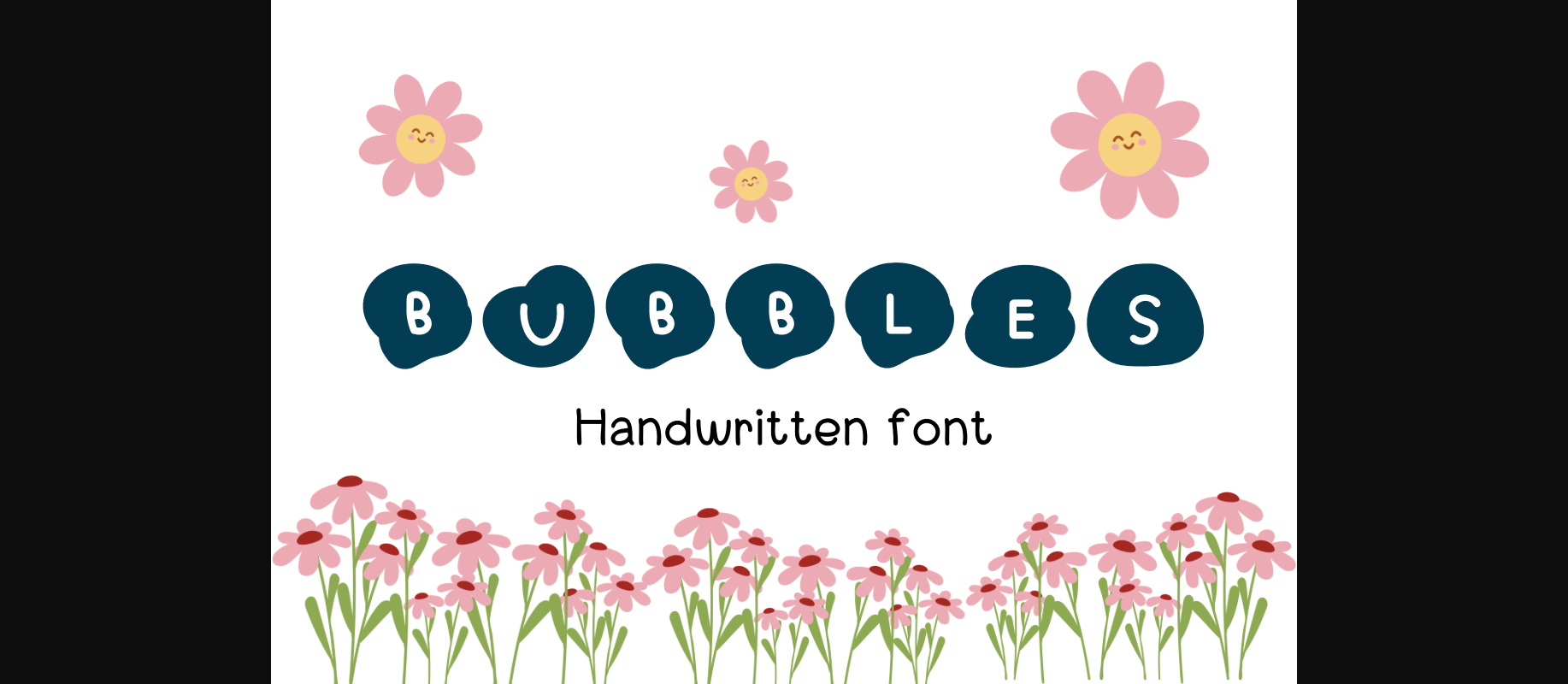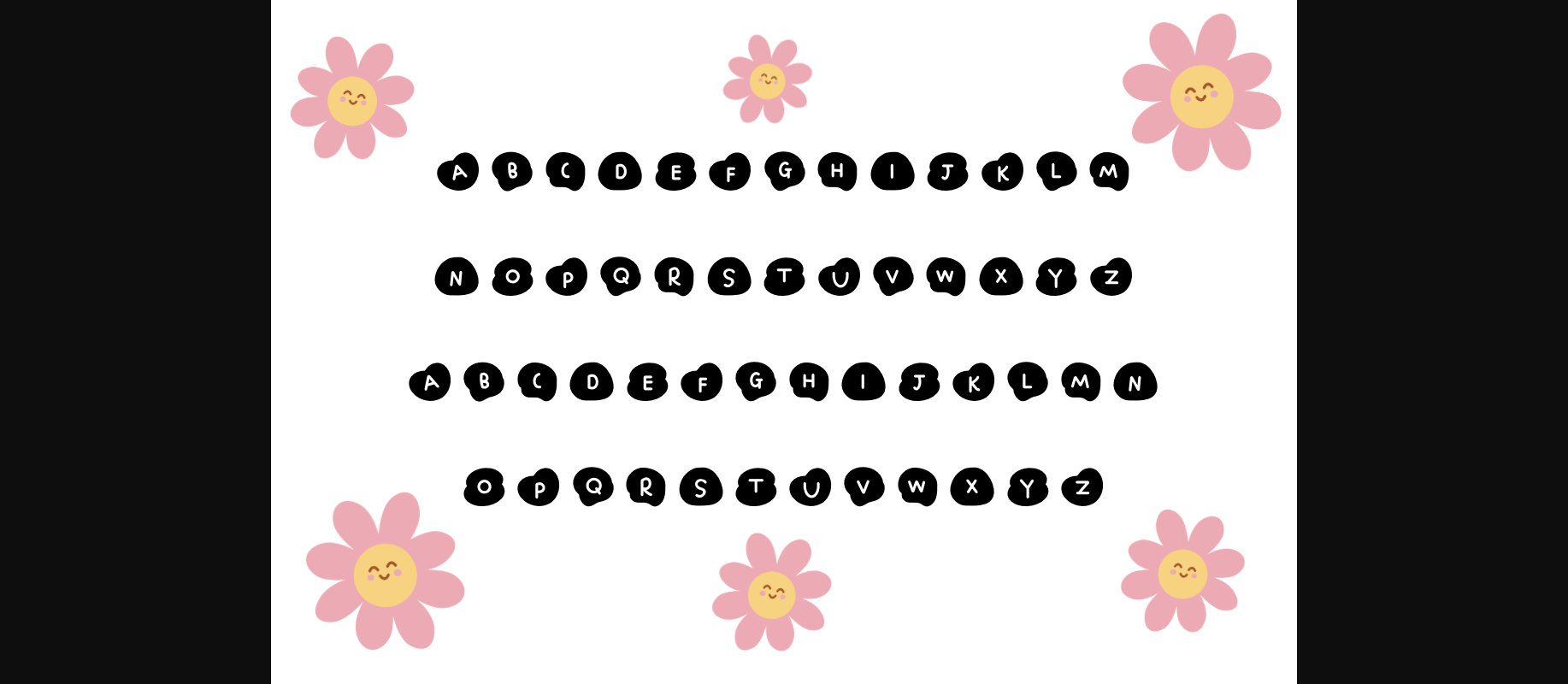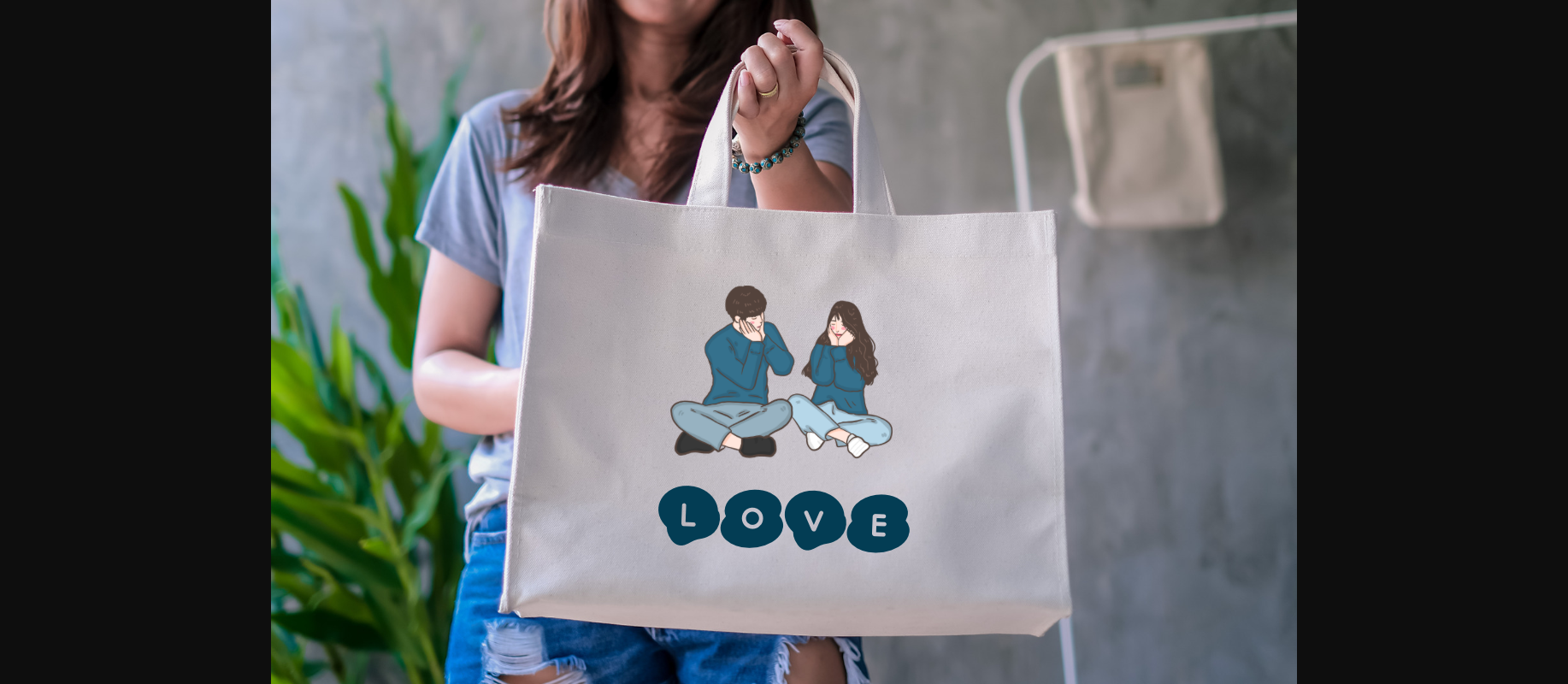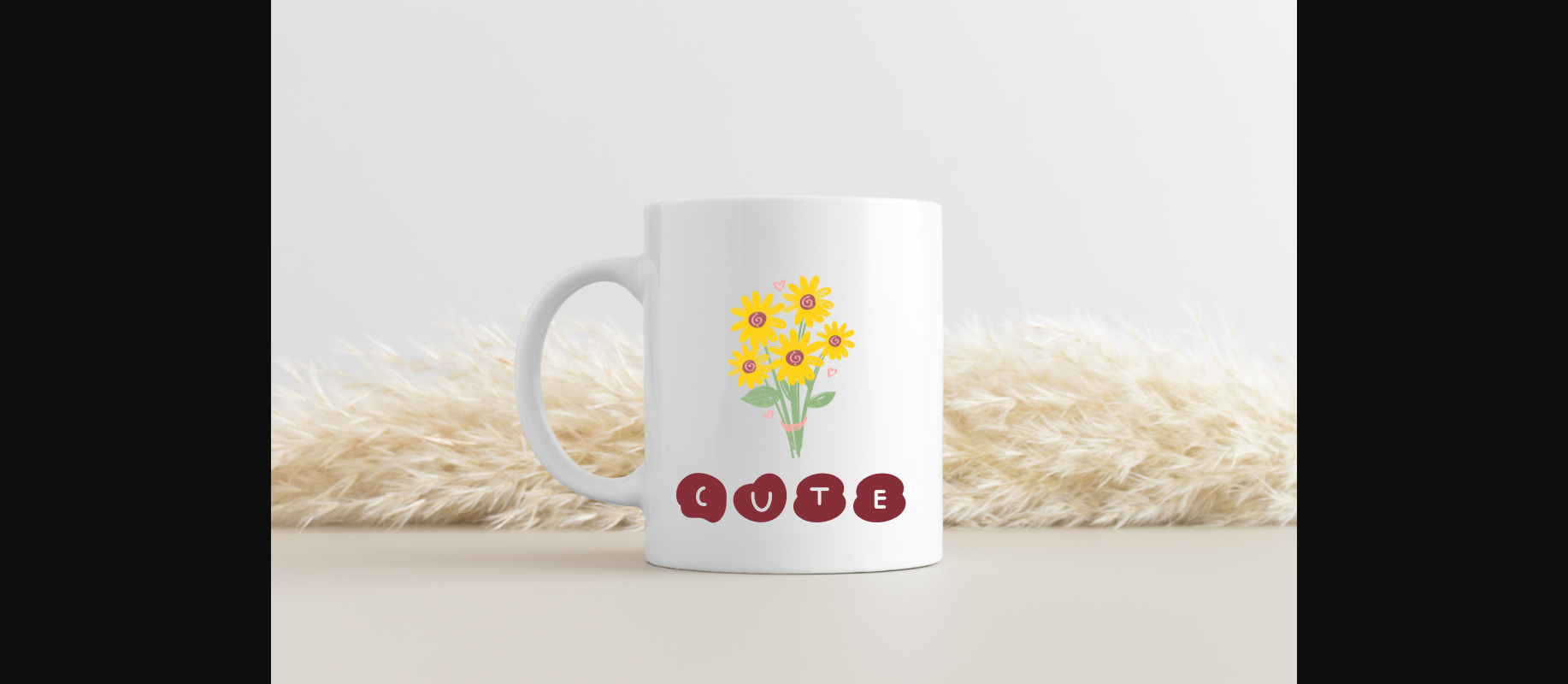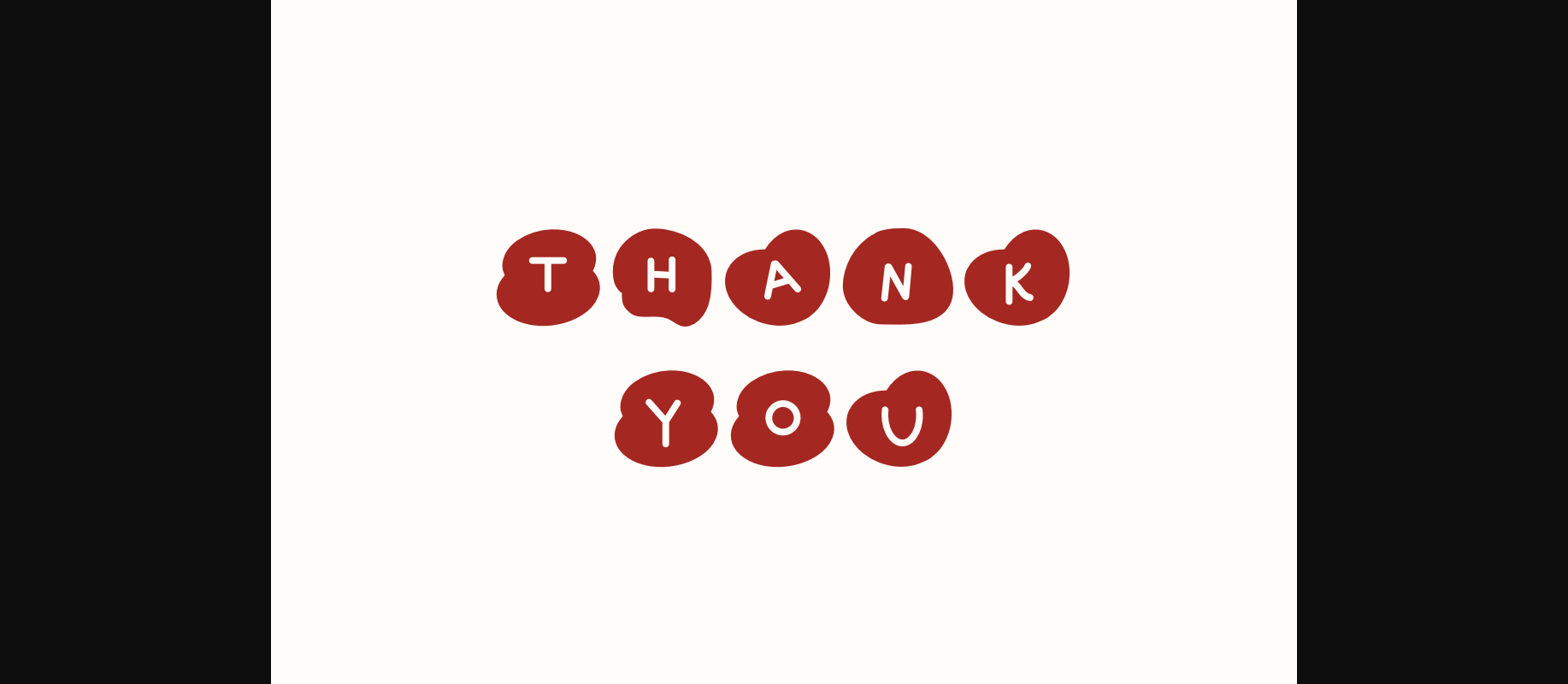
Bubbles Font
About Bubbles Font
Bubbles is a fun and playful decorative font where each letter is contained within its own bubble. This quirky feature adds a cheerful and light-hearted vibe to your designs. Perfect for projects that need a touch of whimsy, Bubbles brings a sense of joy and creativity to your text. Whether you’re designing greeting cards, posters, or anything in between, Bubbles adds a pop of personality to your typography.